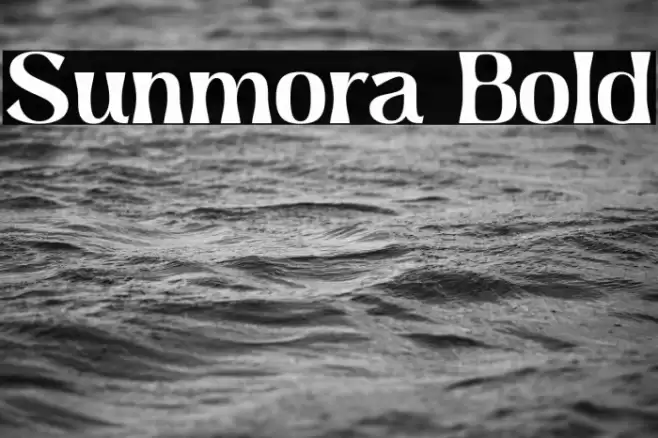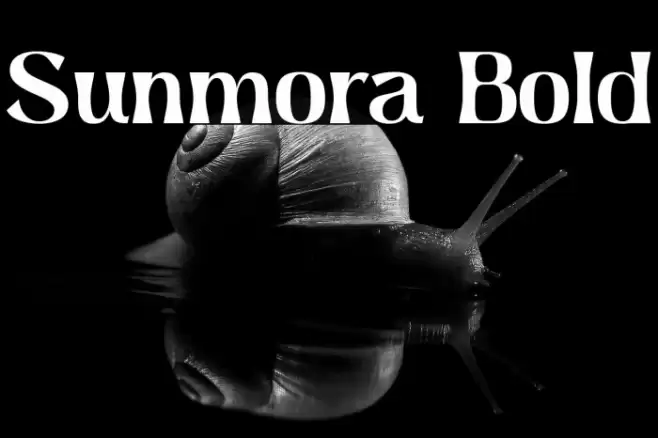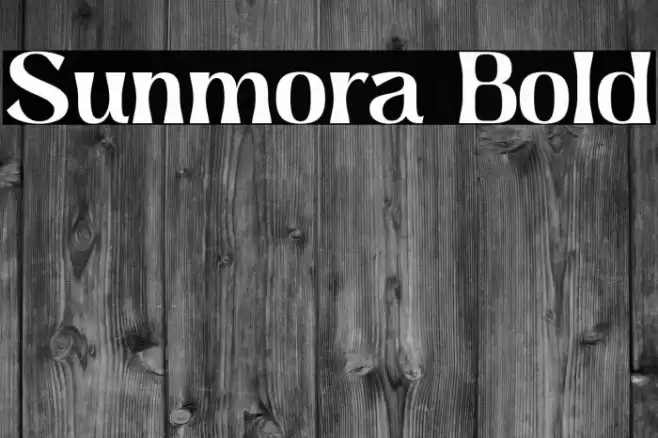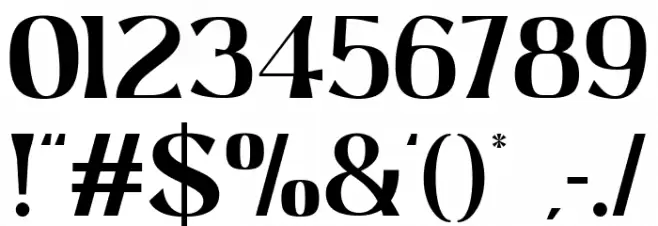
Sunmora Bold Font
Sunmora Bold Description
This font exhibits a bold and dynamic style with a strong presence. The uppercase letters are characterized by their thick, sturdy strokes and slightly condensed forms, giving them a powerful and commanding appearance. The lowercase letters maintain a consistent weight, providing a harmonious balance with the uppercase. The numerals are distinct and robust, ensuring clarity and readability. Special characters are designed with the same boldness, integrating seamlessly with the rest of the typeface. The overall design is modern yet retains a classic touch, making it versatile for various applications.
A bold, dynamic font with strong, condensed strokes and a modern yet classic style from Uncategorized fonts.